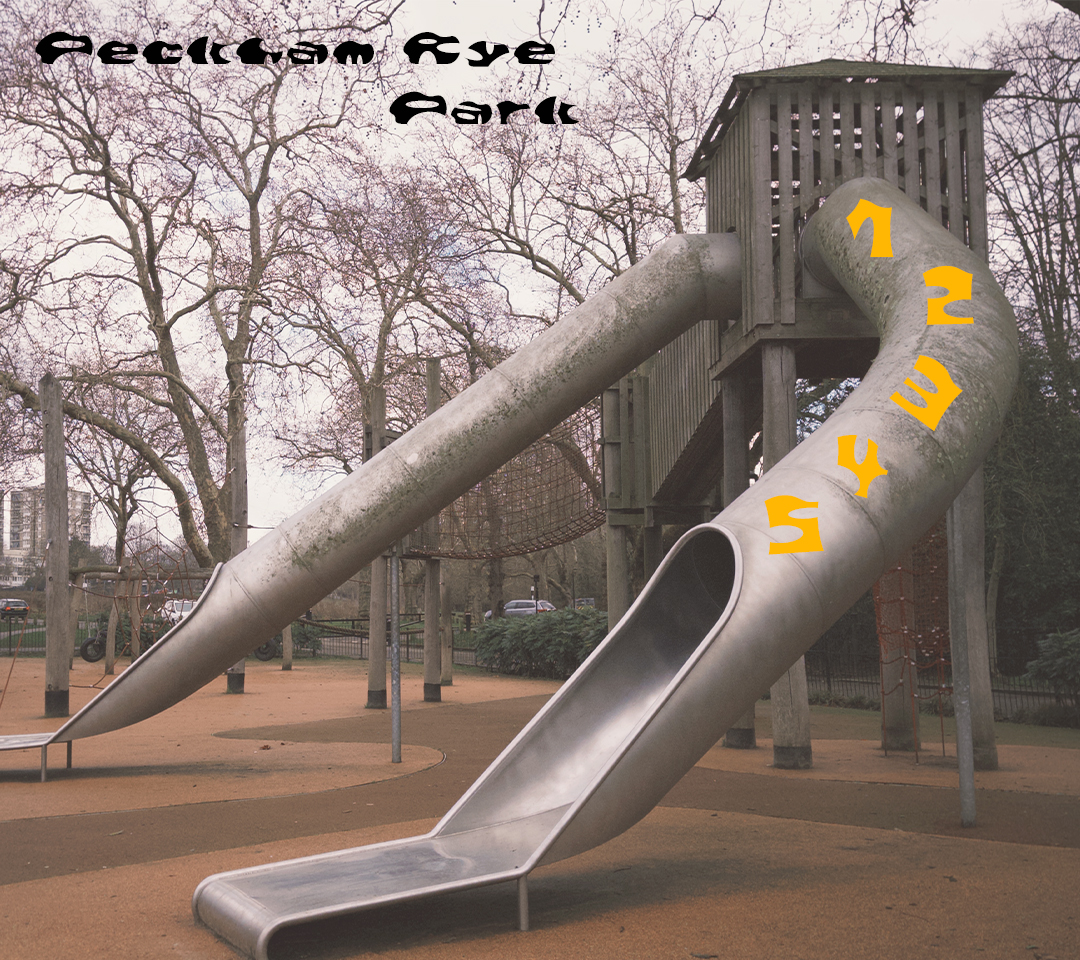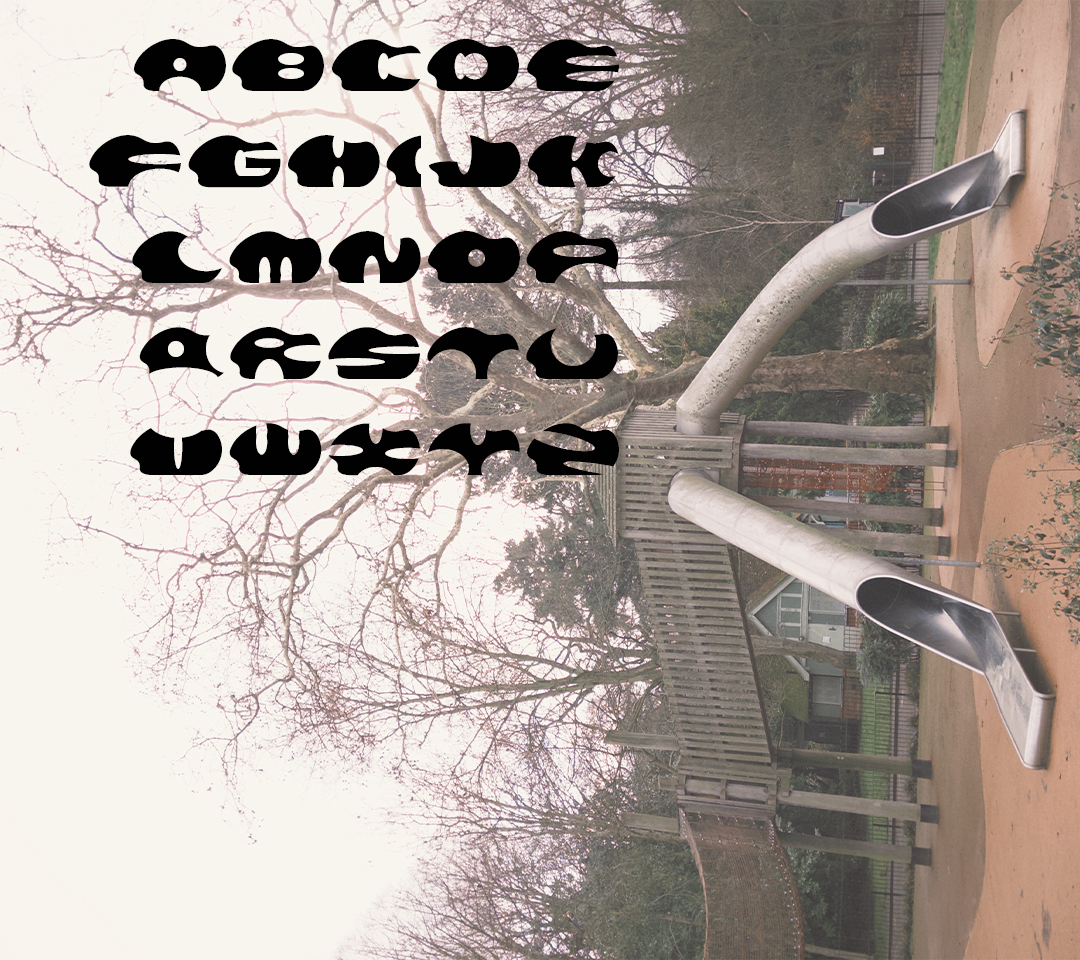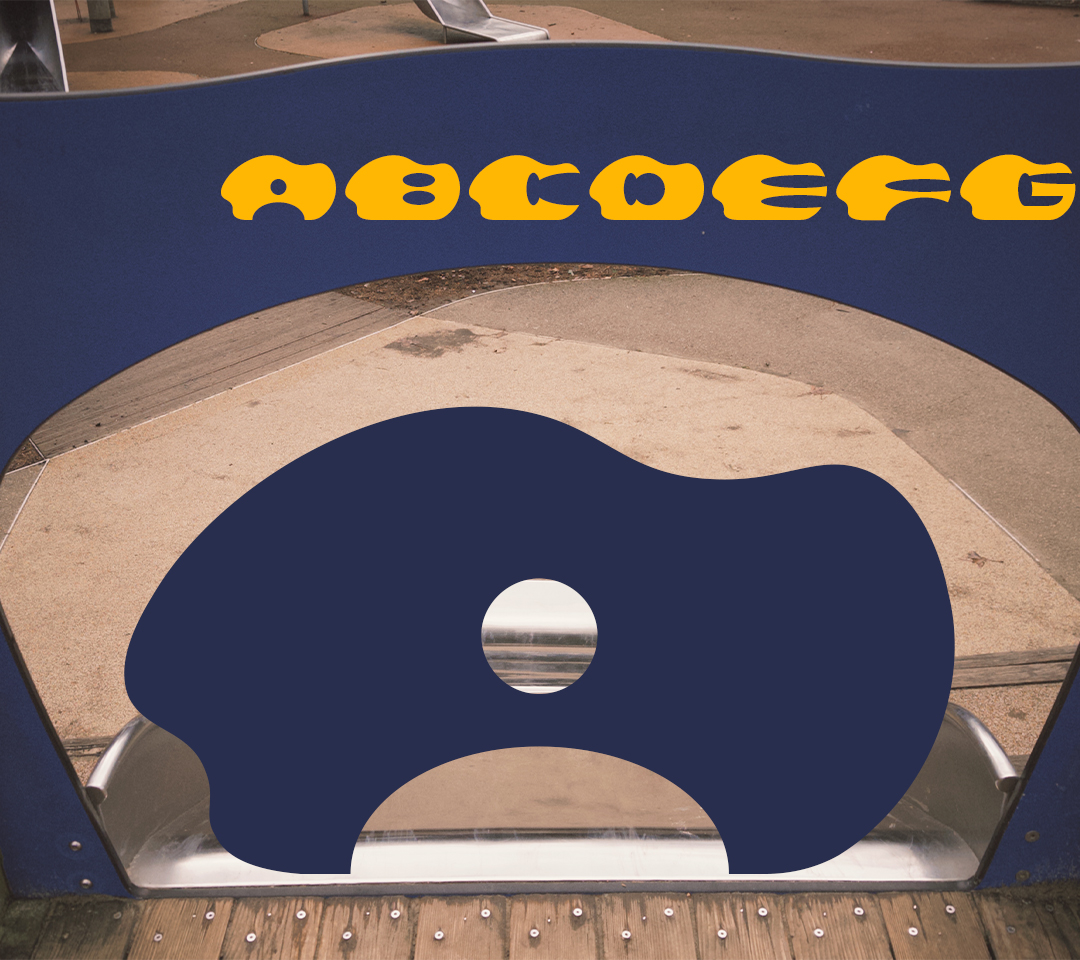
UGOO is a display typeface inspired by a children's play area discovered during my walks through Peckham Rye Park. The design originates from observing playground equipment from multiple viewpoints, particularly the way forms are positioned, experienced, and perceived through play. By extracting, recombining, and rearranging these visual fragments, the typeface translates spatial experience into letterform structure.
Each character is built upon a rounded, irregular flattened oval ' a shape derived from the perspective of a child standing at the top of a slide, looking downward just before descent. This recurring form becomes the visual framework of the typeface, giving UGOO its soft, compressed, and organic silhouette.
UGOO embraces a language of roundness, looseness, and playful inconsistency, merging natural flow with a sense of humour and unrestrained movement. The typeface also reflects my personal memory of childhood play, alongside my observations as an adult watching children interact with space and objects. With its bold strokes, decorative presence, and playful appearance, UGOO is suited to expressive design contexts where character, emotion, and visual rhythm are foregrounded.